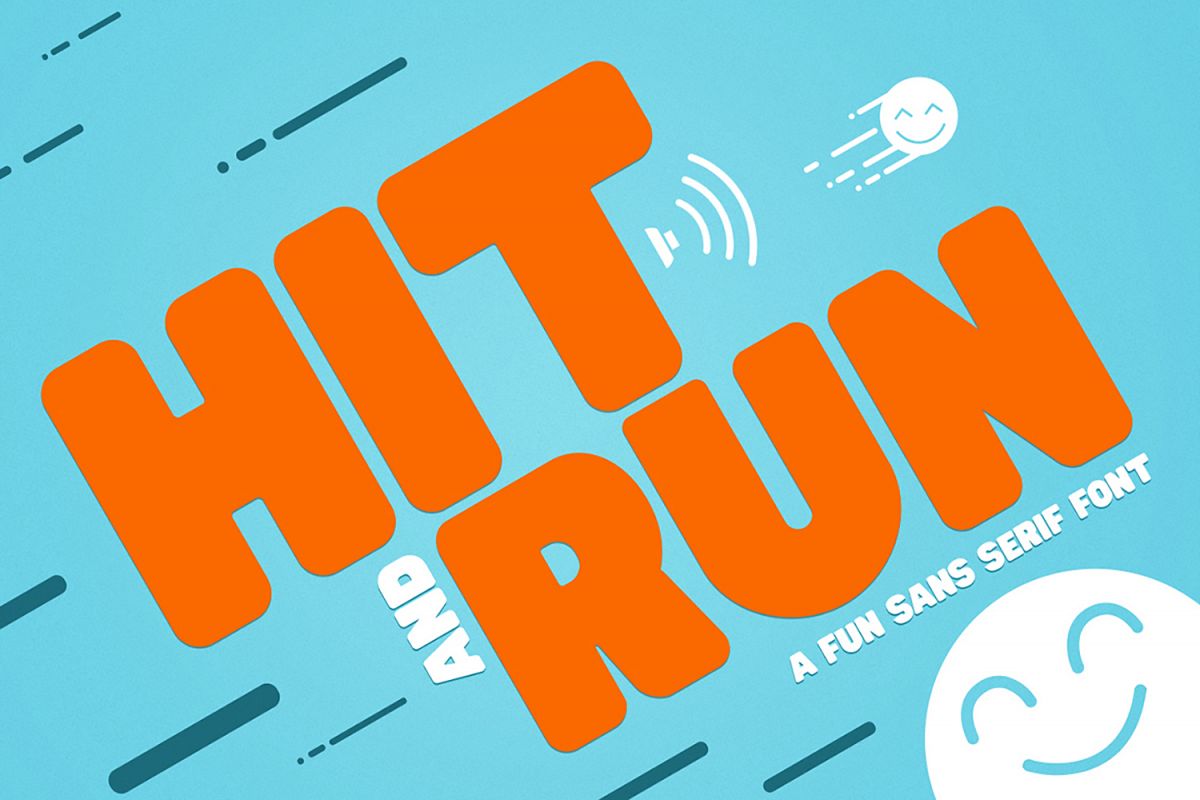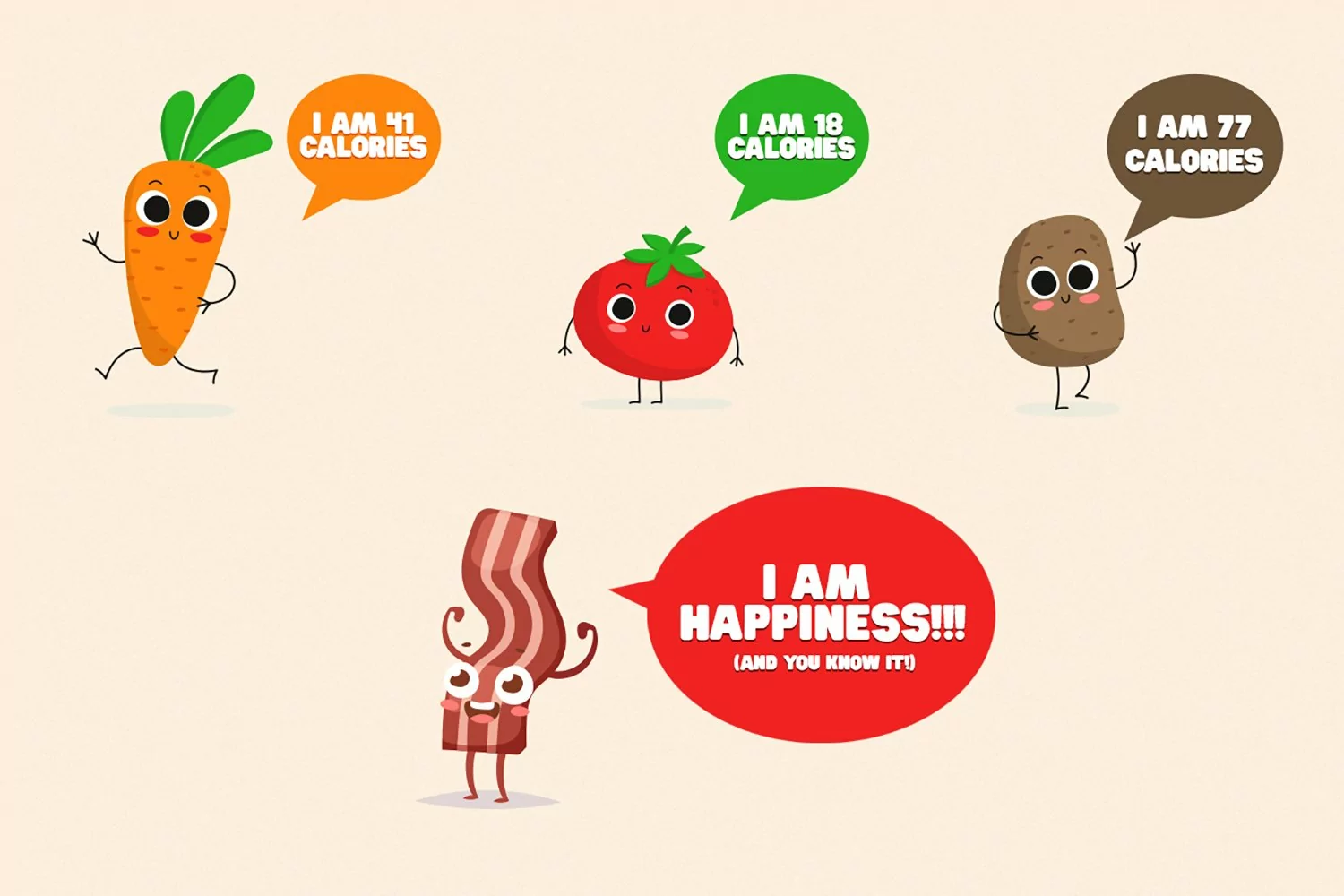
Hit and Run - Fun Sans Serif Font
Introducing:
HIT AND RUN! A Sans Serif font ready to have fun! Ready to ring the bell and run to your layouts! Great for all kind of kids layouts, invites, Instagram posts, etc.
Now go have some fun with Hit and Run!